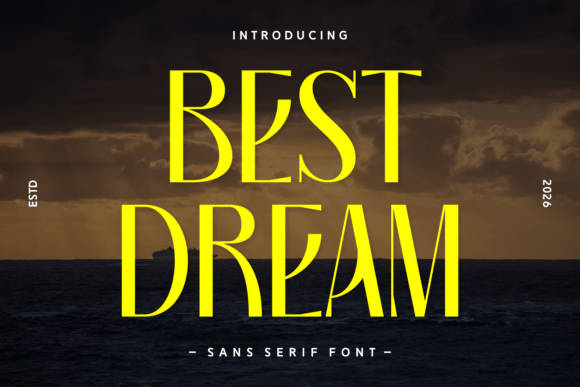
The Moment That Sets Your Project Apart
Have you ever been stuck on a design project, struggling to find the perfect font to elevate your visual storytelling? We’ve all been there. The blank page stares back at us, taunting us with its emptiness. But what if I told you that there’s a font that can change all that?
Meet the Best Dream Font, a game-changing sans-serif typeface designed to make a bold statement. With its dramatic verticality and distinctive “tapered” apertures, this font reimagines modern minimalism through a lyrical, expressive lens. Whether you’re crafting a title for a prestige film or a logo for a boutique fashion house, the Best Dream Font delivers a professional, sophisticated aesthetic that feels light-years ahead of the curve.
Key Features of Best Dream Font
- Font Family: Best Dream Font offers 4 unique font families with 8 styles each, providing a wide range of options for designers and artists.
- Size: Each font family includes 8 styles, ranging from Thin (100) to Extra Bold (800), allowing for precise control over font weight and emphasis.
- Resolution: Optimized for high-resolution displays, Best Dream Font is ideal for use in digital designs, including websites, social media, and mobile apps.
- Unique Characteristics: This font family features a dreamy, ethereal quality, with subtle irregularities and nuances that evoke a sense of whimsy and imagination.
Review of “Best Dream Font”
Overall, I think “Best Dream Font” has some great qualities that make it suitable for certain design projects. ✨ One thing I like is the versatility of the font – it comes in a range of weights and styles, which makes it easy to use in a variety of contexts. The font is also highly customizable, which is a big plus for designers who like to have control over the details.
Another thing that works well is the font’s legibility. It’s clear and easy to read, even at smaller sizes, which makes it a good choice for body text or other situations where readability is key. ✨ The font also has a nice, dreamy quality to it, which can be perfect for design projects that need a touch of whimsy or fantasy.
- ⚠️ The font may be too ornate or distracting for more formal or professional design projects.
- ⚠️ The font’s customization options can be overwhelming for designers who are new to font design or customization.
- ⚠️ The font may not be suitable for projects that require a high level of technical precision or accuracy.
In terms of overall impression, I think “Best Dream Font” is a solid choice for designers who are looking for a highly customizable and versatile font. However, it may not be the best choice for every project, and designers should carefully consider the font’s limitations before deciding to use it.
Best Dream Font: A Practical Application Guide
Tips for Getting the Most Out of Best Dream Font
Use Best Dream Font for creative projects that require a unique and eye-catching font. It pairs well with watercolor or hand-drawn illustrations. Experiment with different font sizes and colors to create a visually appealing design.
Best Dream Font is ideal for:
– Creative business branding
– Artistic quotes and posters
– Handmade product labels and packaging